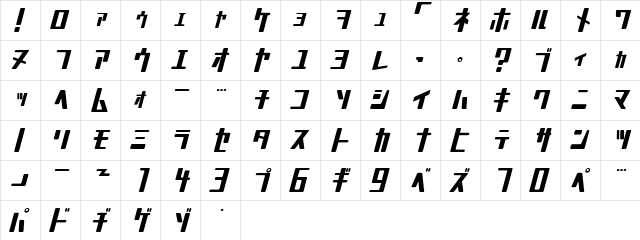
I2MobileSui Regular
Design Context for I2MobileSui Typeface
I2MobileSui offers clean, dependable letterforms without strong stylistic allegiance, making it a practical choice for designers who need flexibility.